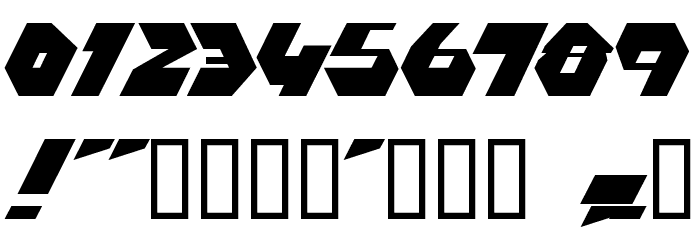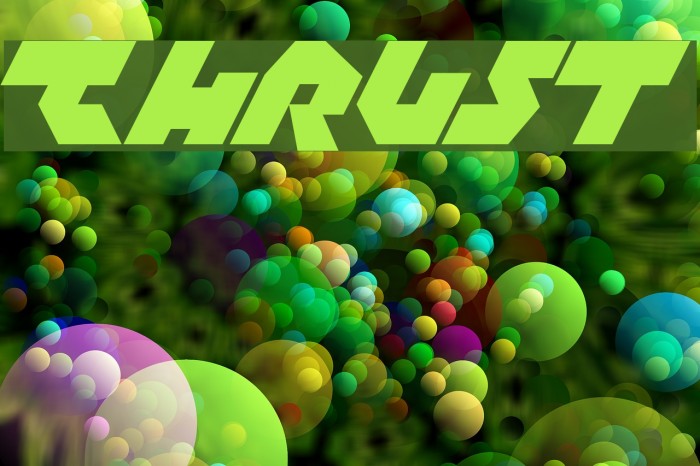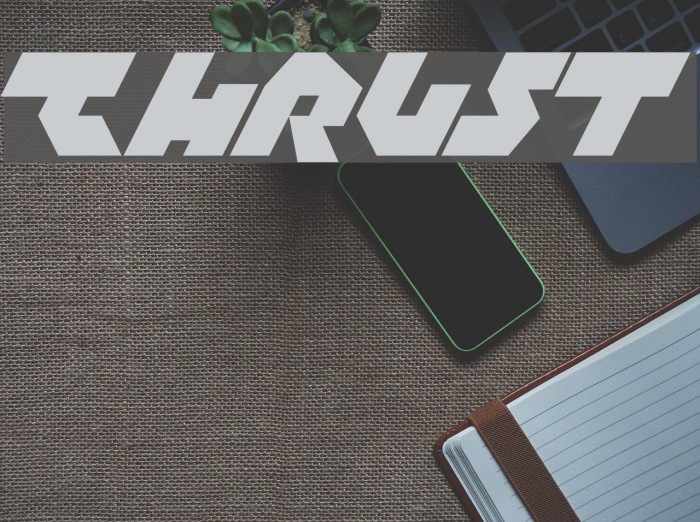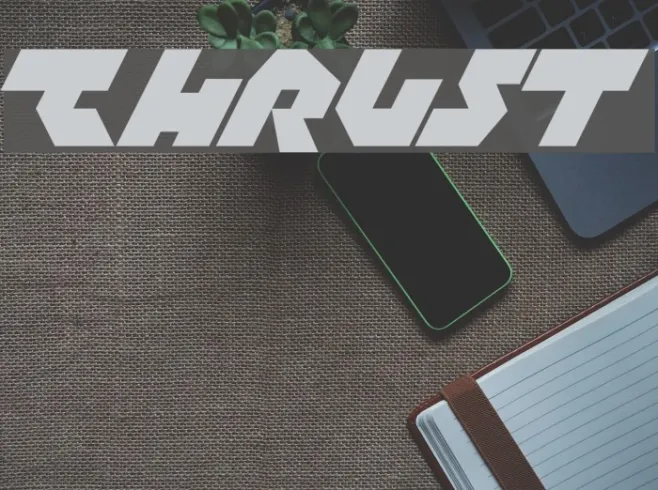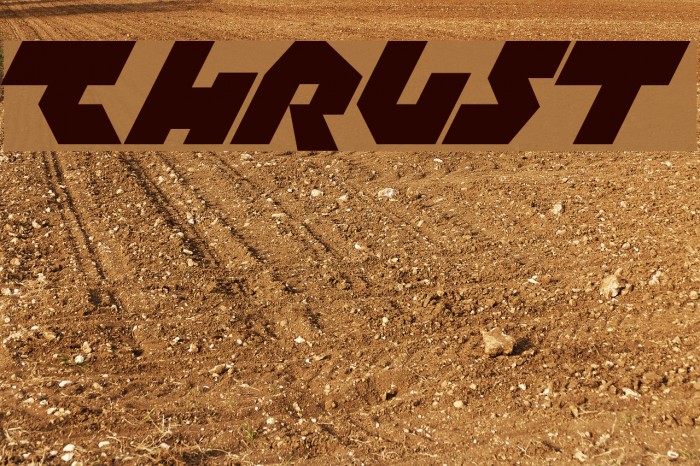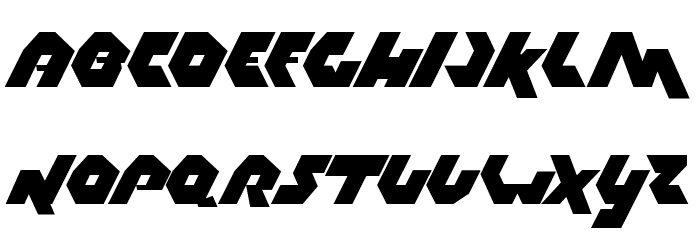
Thrust Font
Thrust Description
This font features a bold, angular design with sharp edges and geometric shapes, giving it a futuristic and dynamic appearance. The characters are constructed with a sense of movement and energy, making them stand out with a strong visual impact. The uppercase and lowercase letters maintain a consistent style, with the numbers and special characters following the same design principles. The font's unique style is suitable for projects that require a modern and edgy look.
| Proposed Projects | Ideal for sci-fi themed projects, video game titles, tech branding, and futuristic posters. |